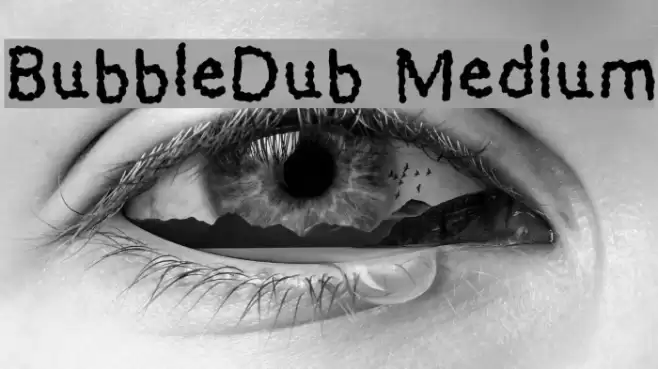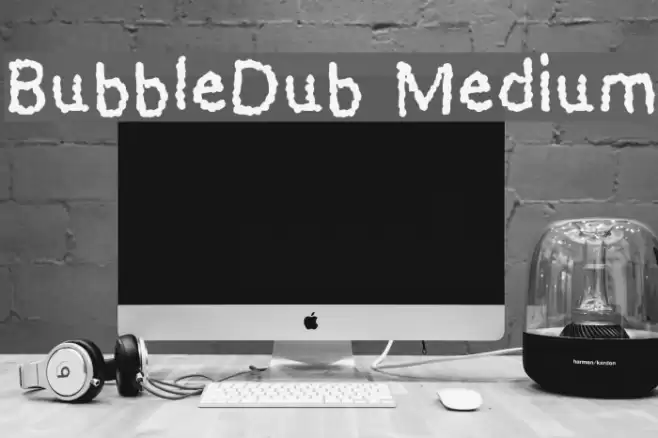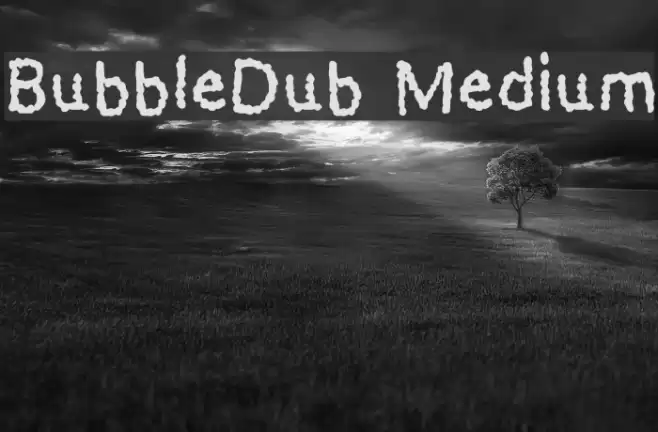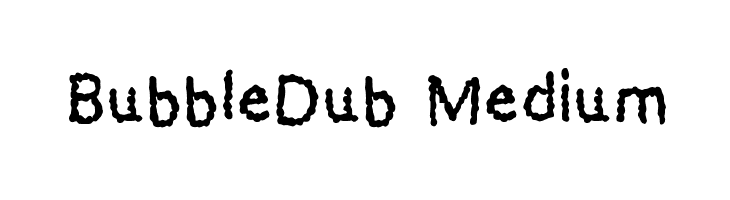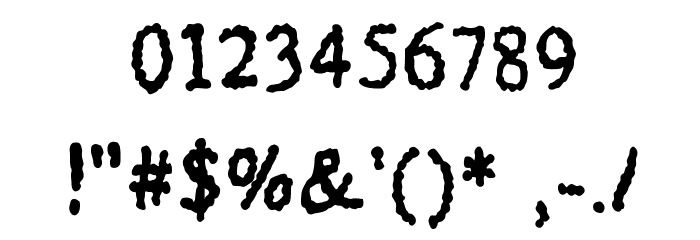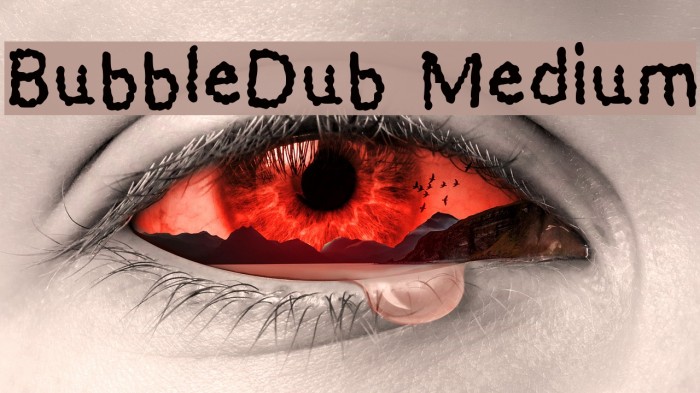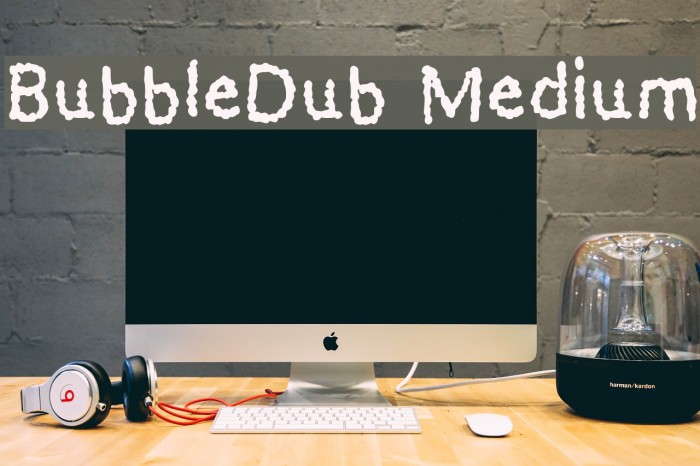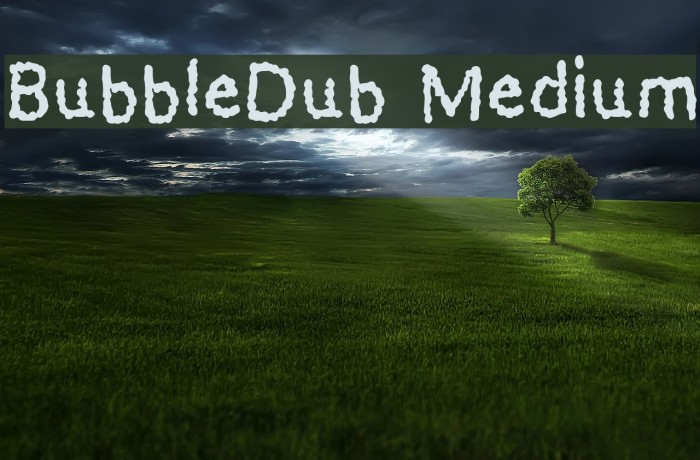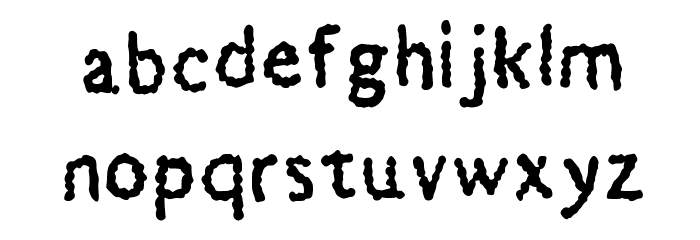
BubbleDub Medium Font
BubbleDub Medium Description
This playful and whimsical font features a bubbly, textured appearance that gives each character a unique, hand-drawn feel. The letters are rounded and slightly irregular, adding to the casual and fun aesthetic. The uppercase and lowercase letters maintain a consistent style, with the numbers and special characters following suit. The font's distinct texture resembles small bubbles or dots, creating a lively and dynamic look. It's perfect for projects that require a touch of creativity and lightheartedness, such as children's books, playful branding, or casual invitations. The overall design is approachable and friendly, making it suitable for a variety of informal contexts.
A playful, bubbly font with a hand-drawn, textured appearance from bubble letter fonts.
- Proposed Projects: Children's books, playful branding, casual invitations, creative posters.
- Overall Style: Playful, Whimsical
- Use Case: Headlines, Logos, Creative projects